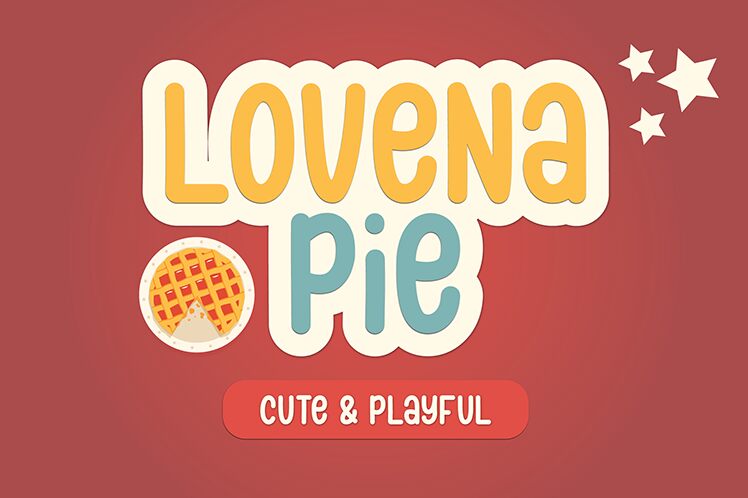
Lovena Pie, a bold and cute handwritten font designed by Yusa Putra, is perfect for projects that require a playful and fun touch. It can be used in children's books, cartoon titles, logos, or any other creative project.